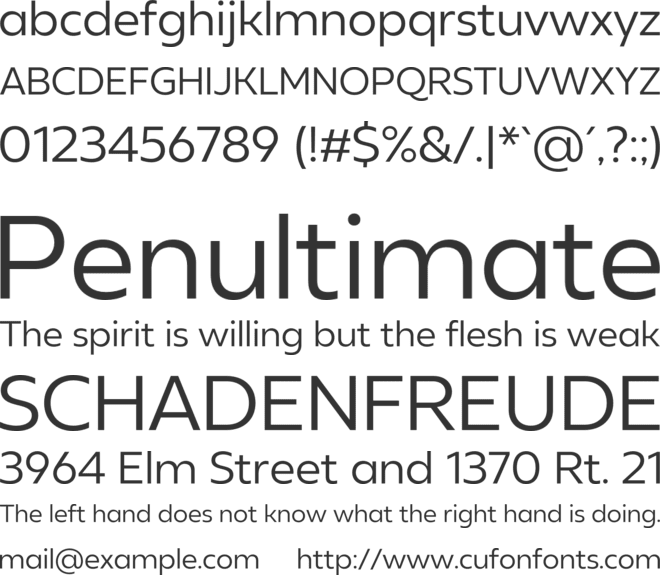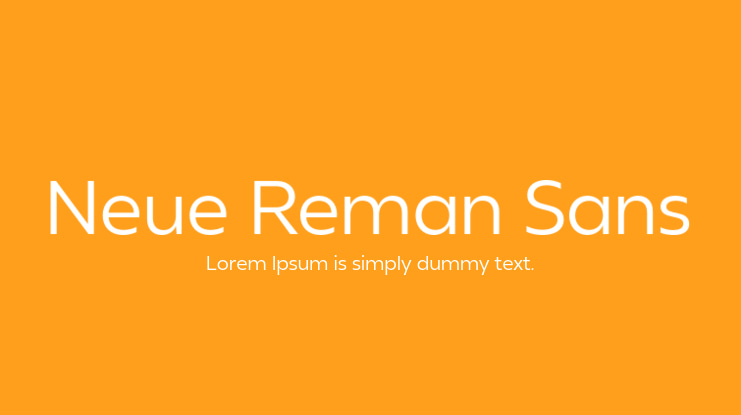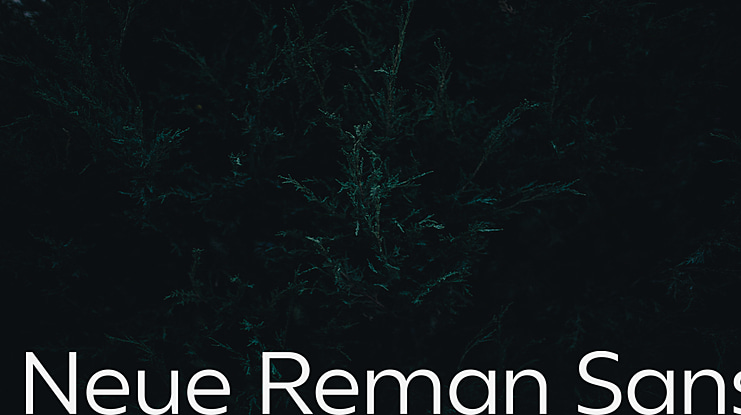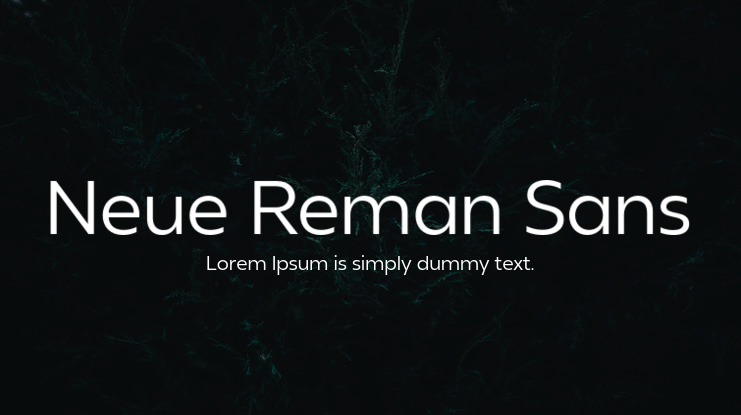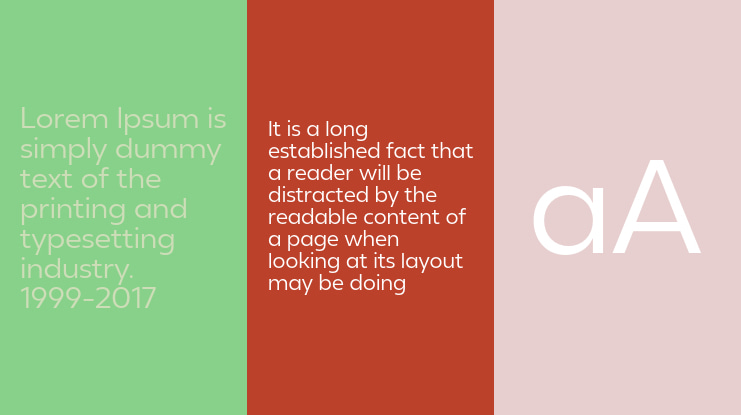
Neue Reman Sans Font
Sarwo Edi, Nadia Auliana
This is a humanist sans-serif typeface with excellent clarity and readability. We create Neue Reman typeface to use in multipurpose project such as on website, systems, printing, embedding, servers, screens, display, digital-ads, branding, logos, titles, headlines, teks, and everything else.
This font is a project that we are working on for the long term. We has updating the Condensed and Expanded versions. Then we plan to continue working on Latin Pro, Greek and Cyrillic. It all will be updated gradually.